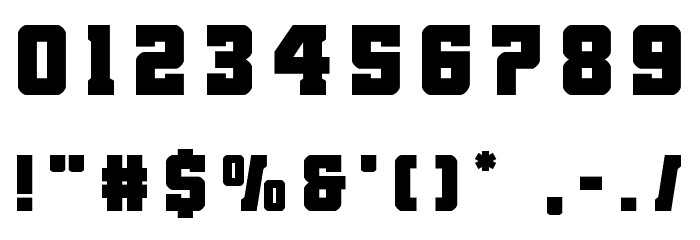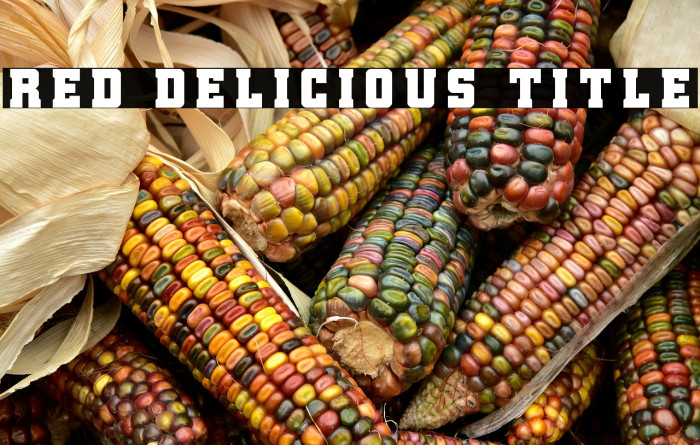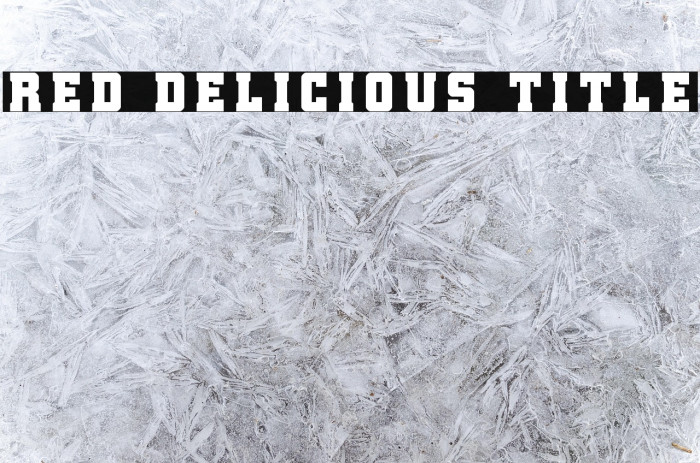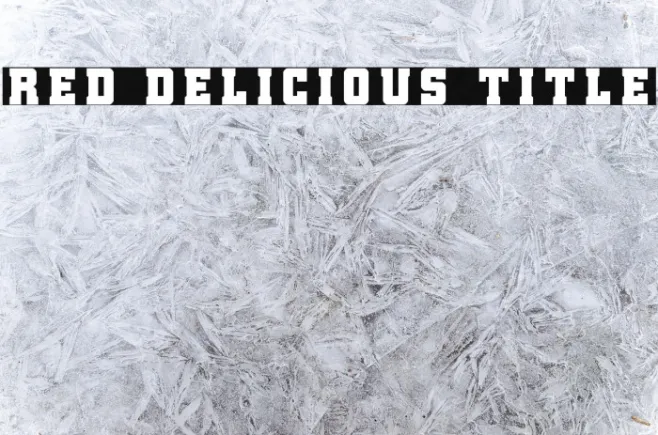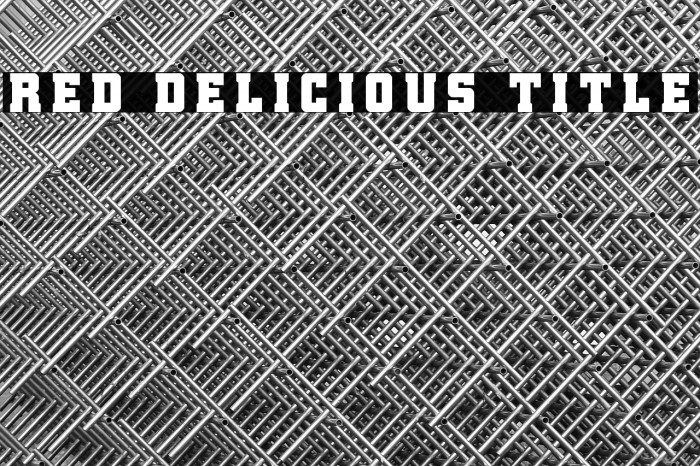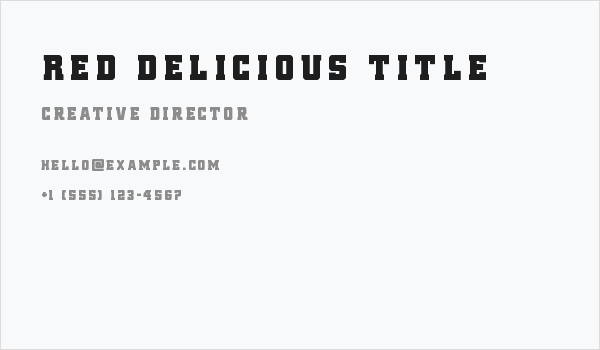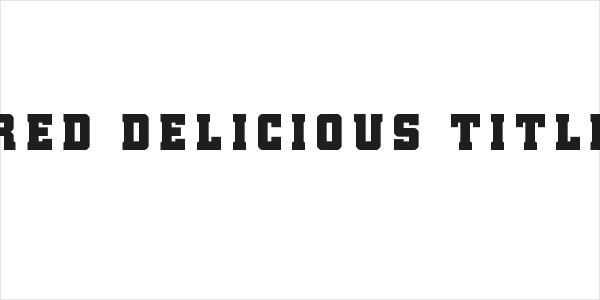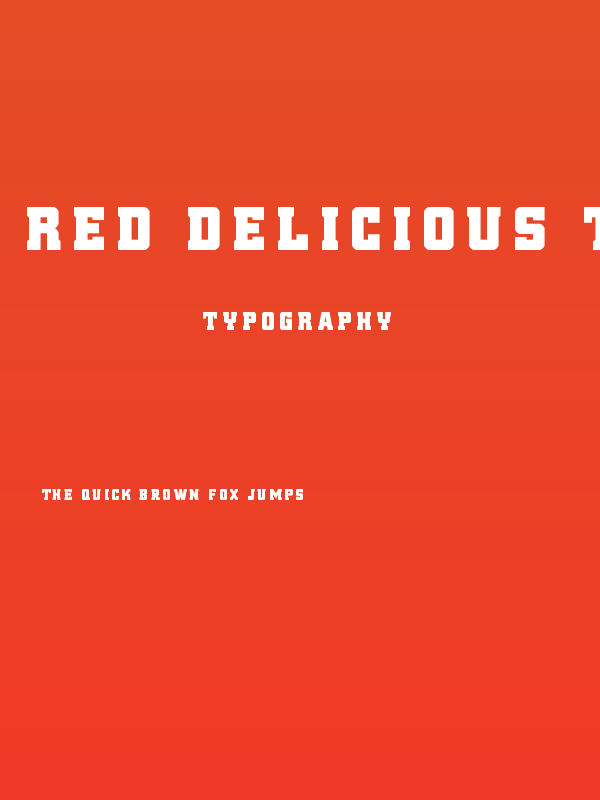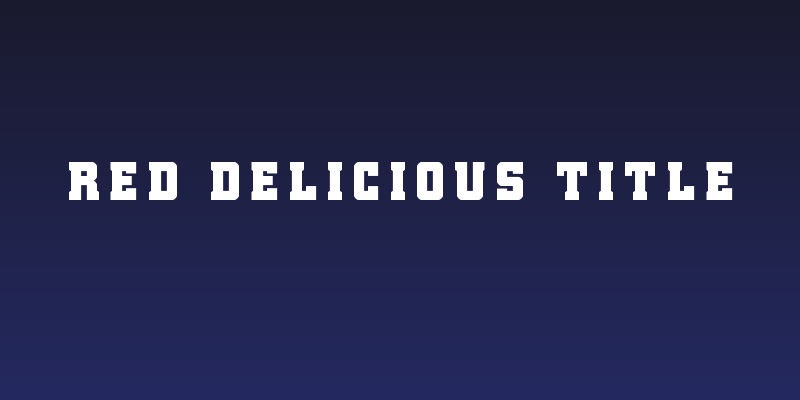
Red Delicious Title Font
Red Delicious Title Description
This font features a bold, robust design with strong, block-like characters that convey a sense of strength and stability. The letters are uniformly wide, with consistent stroke thickness that gives them a solid, impactful appearance. The uppercase and lowercase letters maintain a cohesive style, with slightly rounded edges that soften the otherwise rigid structure. The numerals and special characters follow the same design principles, ensuring a harmonious look across all elements. This font's boldness and clarity make it suitable for attention-grabbing headlines and titles.
| Proposed Projects | Ideal for posters, banners, logos, and any design requiring a strong, impactful typeface. |